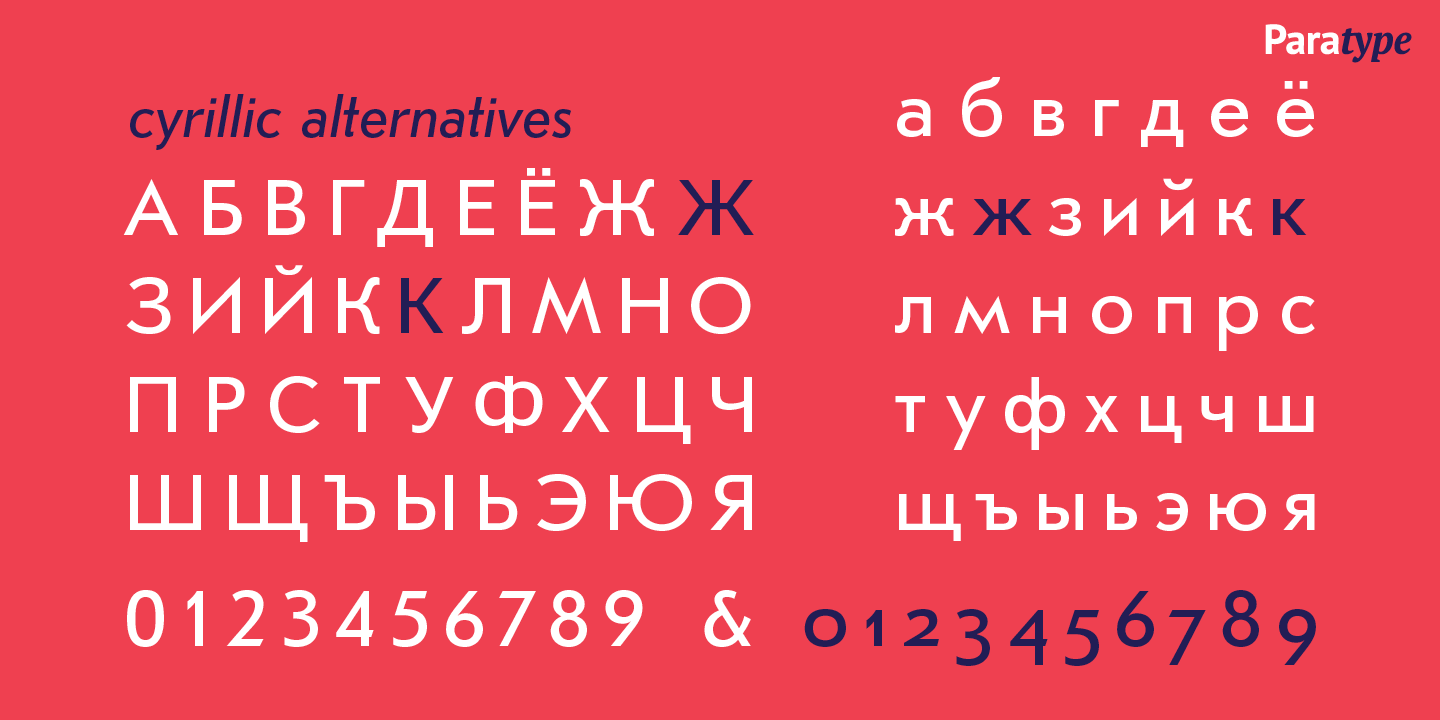
Journal Sans Old School Font is perfect for vintage newspapers, traditional editorial design, academic publications, historical documentaries, classic book typography, heritage branding, educational materials, and nostalgic advertising campaigns.
What makes Journal Sans Old School Font exciting is its authentic vintage character that captures the essence of traditional newspaper typography with contemporary functionality. This distinguished typeface features classic proportions, subtle weathered qualities, and time-tested readability that evoke the golden age of print journalism, making it ideal for projects seeking to communicate trustworthiness, tradition, and editorial authority while maintaining modern usability.
The Journal Sans Old School Font family includes Regular, Bold, and Italic weights, each preserving the characteristic vintage newspaper aesthetic and traditional editorial appeal that define this timeless typeface's journalistic heritage and professional credibility.
Journal Sans Old School Font Free Download provides access to a typeface that honors the rich tradition of print journalism while serving contemporary design needs. This versatile font combines historical authenticity with modern technical standards, making it perfect for publications, educational institutions, and brands seeking to communicate reliability and editorial excellence. The font's classic construction and proven readability ensure optimal performance in extensive text applications while its vintage character adds authenticity to any communication. Whether designing traditional magazines, academic journals, or heritage brand materials, this font delivers the editorial credibility and timeless appeal that sophisticated readers expect. Its journalistic foundation and classic aesthetics make it essential for projects celebrating the art of storytelling, investigative reporting, and the enduring power of quality journalism in shaping informed public discourse.